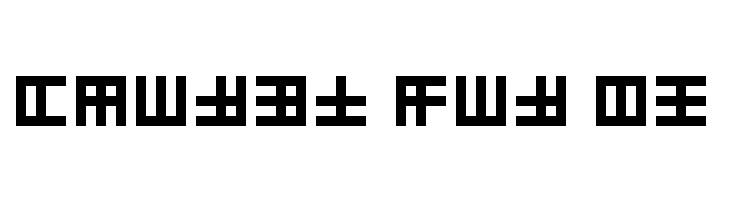
Hand Test Font
A dynamic, expressive handwritten font with fluid strokes.
Yellow Magician Font
A whimsical serif font with decorative and magical elements.
The Adrian Frutiger Experience Regular Font
A geometric, futuristic font with a blocky, angular design.
blow Regular Font
A bold, modern font with geometric shapes and a futuristic style.
Old Gothic Regular Font
A classic Gothic font with intricate, ornate letterforms and high contrast strokes.
Zillah Regular Font
A bold, angular font with a gothic, medieval influence.